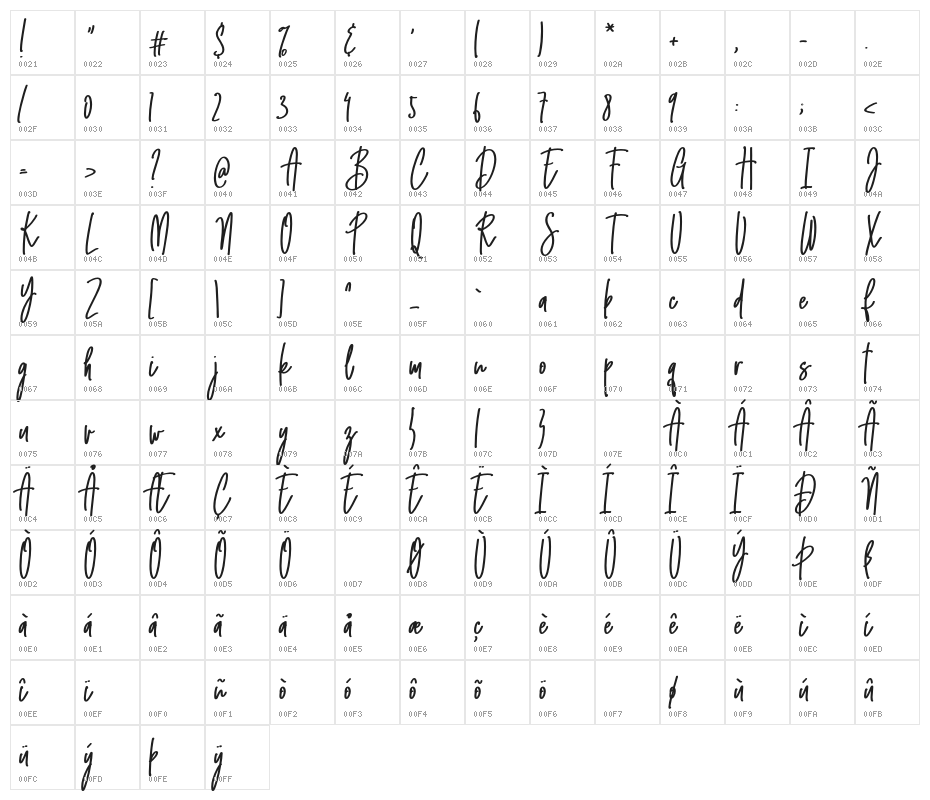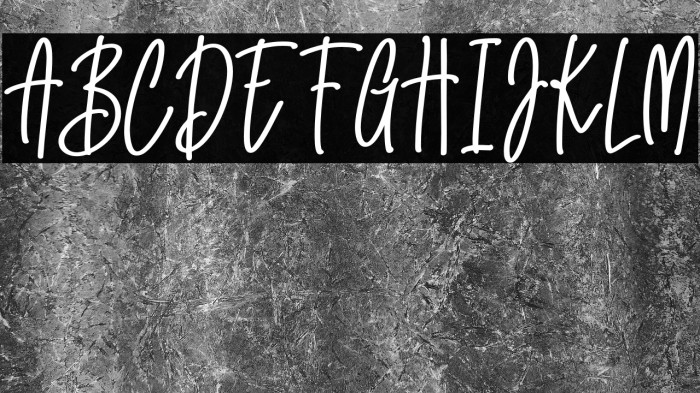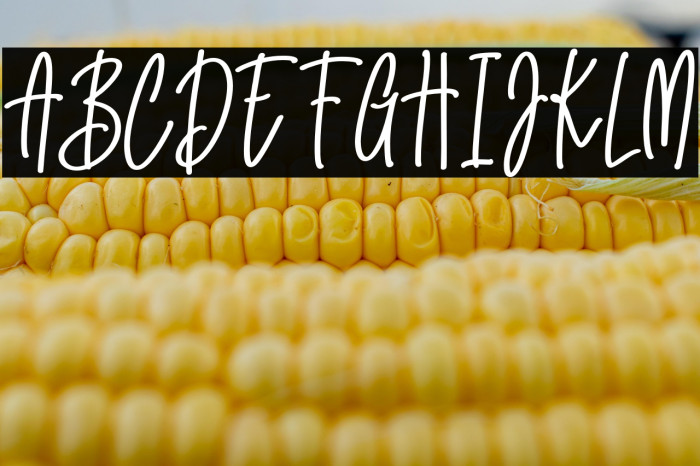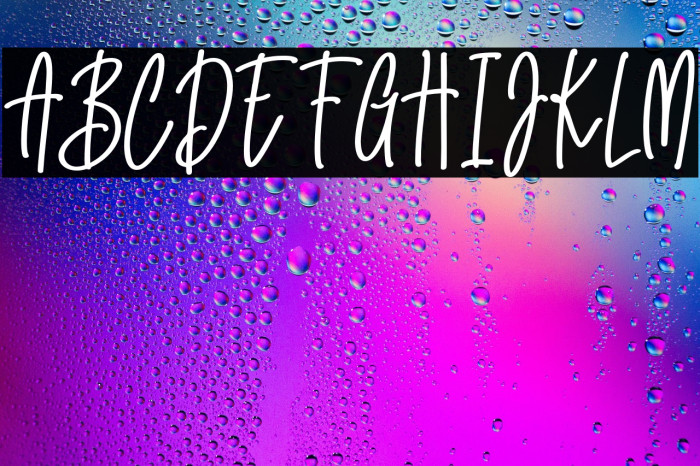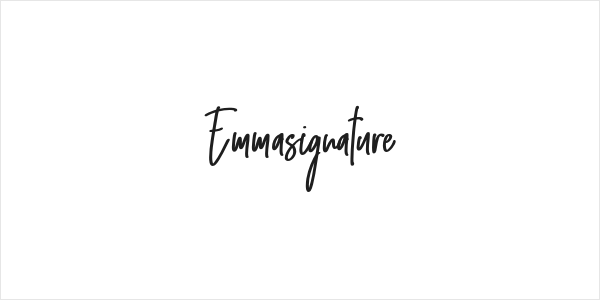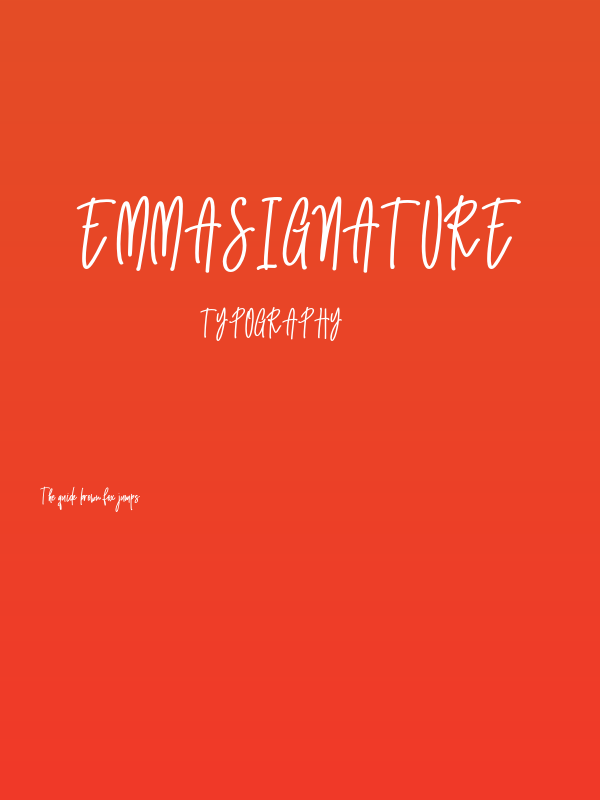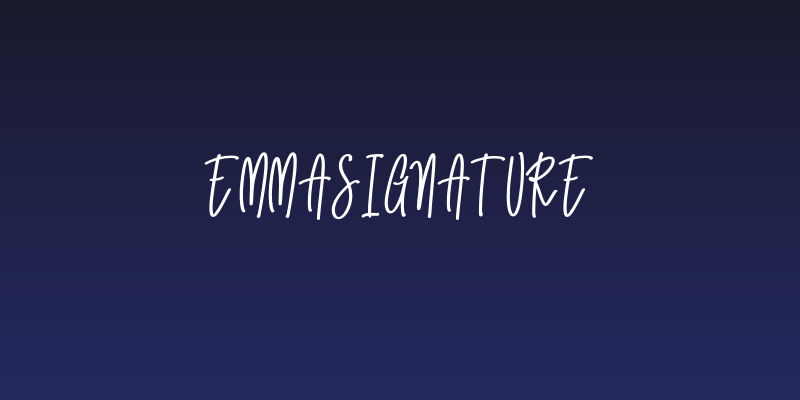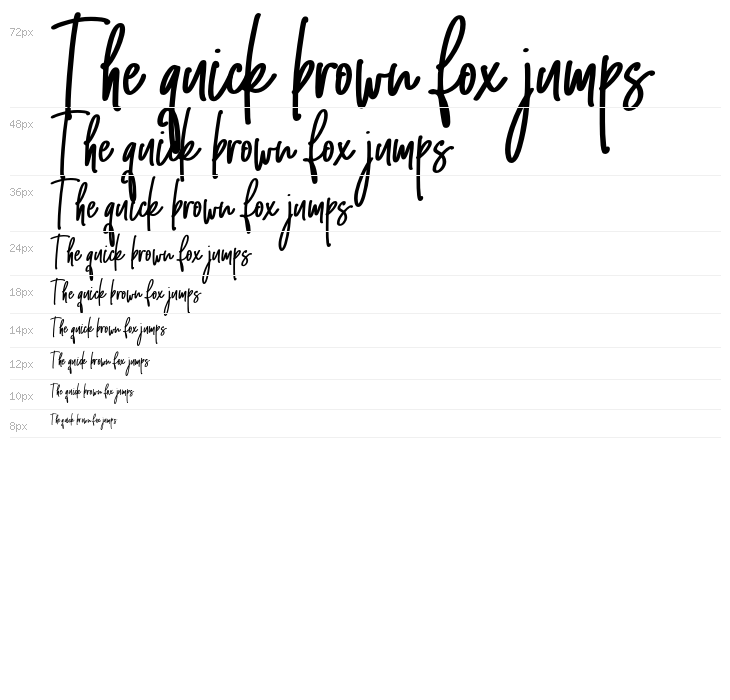
Emmasignature Font
Emmasignature Description
This font features a handwritten style with a casual and flowing appearance. The uppercase letters are tall and narrow, with a slight slant that adds a dynamic feel. The lowercase letters are more rounded and connected, enhancing the script-like quality. Numbers and special characters maintain the same fluidity, ensuring consistency across all glyphs. The strokes vary in thickness, providing a natural and authentic handwritten look. This font is ideal for projects that require a personal touch or an informal vibe.
| Overall Style | Casual, Informal |
| Use Case | Logos, Headlines, Personal projects |
| Proposed Projects | Ideal for greeting cards, personal branding, social media graphics, and informal invitations. |